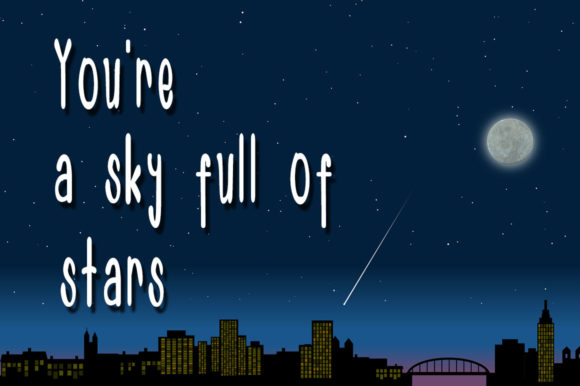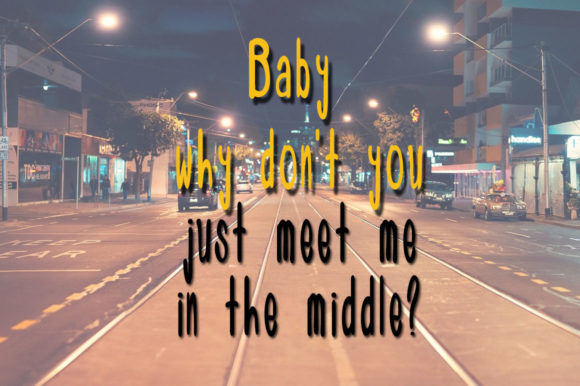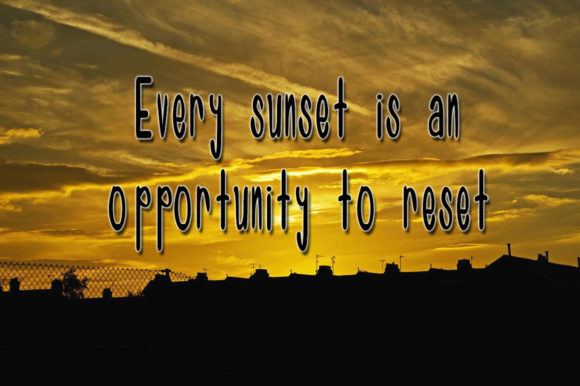
Introduction to Retro Theater Font
Retro Theater is a cute and casual handwritten font.
Whether you’re looking for fonts for Instagram or calligraphy scripts for DIY projects, this font will complement each of your designs .
Key Features of Retro Theater Font